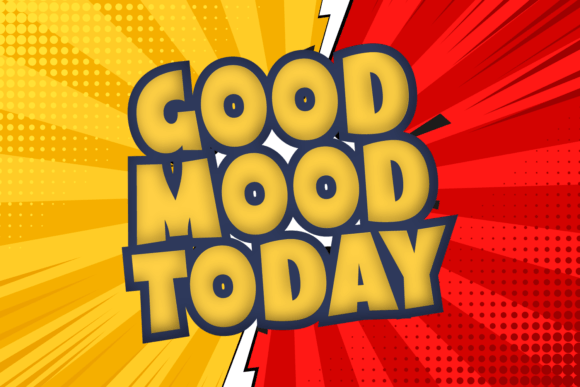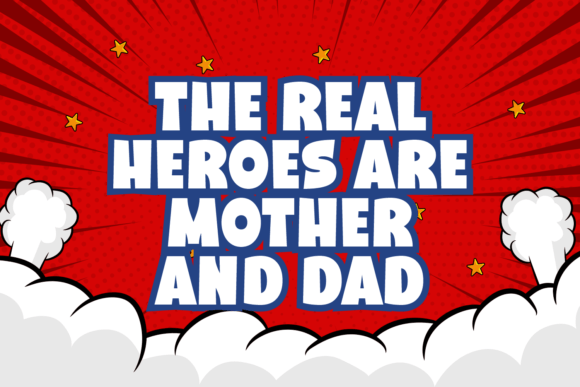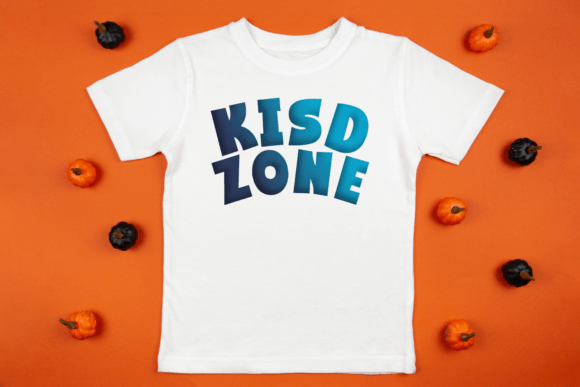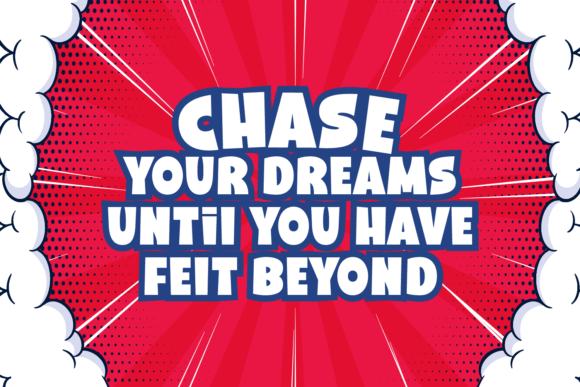
Introduction to Dirch Calm Font
Remember that moment when you stumbled upon a perfectly designed comic book or a cartoon that instantly put a smile on your face? The vibrant colors, the quirky characters, and the playful typography all combined to create an unforgettable experience. For designers, capturing that magic is what makes a project truly special. One font that can help you achieve this is the Dirch Calm Font, a charming display font that’s perfect for creating joyful and memorable designs.
This free download is a high-quality design resource that can elevate any creative project. With its thick and playful strokes, Dirch Calm Font is ideal for posters, cards, websites, apparel, and more. Whether you’re designing a kids’ t-shirt or a book cover, this font is sure to add a touch of whimsy and personality to your work. Plus, its transparent background makes it easy to use on any background, giving you complete creative freedom.
Key Features of Dirch Calm Font
- High-quality design resource ideal for creative projects requiring a calm and soothing atmosphere.
- Dirch Calm Font offers a unique blend of modern and classic elements, making it suitable for a wide range of design applications.
- Perfect for designers seeking a versatile and calming font to elevate their creative projects.
Honest Review: Dirch Calm Font
As a designer, I’m always on the lookout for high-quality fonts that can elevate my creative projects. The Dirch Calm Font is one such find. This free download has been a game-changer for me, and I’m excited to share my thoughts on it.
- Smooth lines and curves make it perfect for creating a calming atmosphere in designs.
- Available in multiple weights, from light to bold, offering versatility for various design projects.
- The transparent background allows for seamless integration with images and graphics.
The Dirch Calm Font is incredibly easy to use and looks great on a variety of backgrounds. I’ve used it for designing posters, brochures, and even social media graphics. Its calming effect is perfect for creating a soothing visual experience.
- The font may not be ideal for projects requiring a bold, attention-grabbing font.
- The number of languages supported is limited, which might be a concern for international design projects.
Overall, I’m impressed with the Dirch Calm Font. Its high quality and versatility make it a valuable addition to any design resource. If you’re looking for a calming font for your creative project, I highly recommend giving it a try.
Tips for Getting the Most Out of Dirch Calm Font
For a transparent background, use the font on a white or light-colored background. Experiment with different font sizes and styles to achieve the desired effect.
Dirch Calm Font is ideal for:
- Creating engaging titles and headings
- Designing brand logos and identities
- Developing marketing materials and promotional content